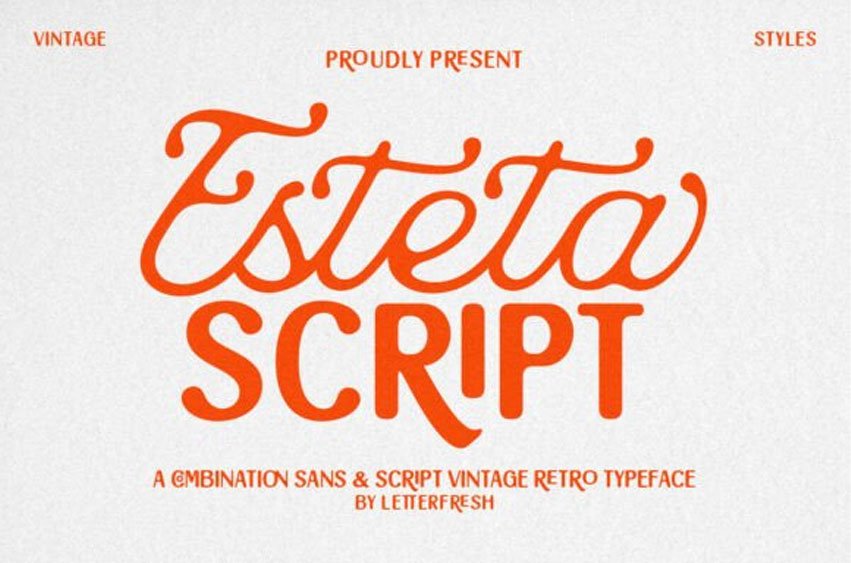
Esteta Script Font
Esteta Script Font Duo is a vibrant, monoline combination typeface that perfectly captures the playful, energetic essence of the 1970s and 80s, offering a refreshing and bold take on vintage design.
This powerhouse duotypeface features a smooth, cursive script brimming with life and generous loops, expertly paired with a punchy, rounded Sans Serif that shares its thickness and confident stance, creating a cohesive and compelling visual identity. Its retro-modern styling makes the Esteta Script font incredibly versatile, from high-impact product packaging and large-scale poster design to cheerful apparel graphics and dynamic social media content.
The Esteta Script typeface comes packed with essential stylistic alternates, ensuring you can fine-tune your headlines for maximum vintage flair. It is the ultimate choice for projects that demand a bold, fun, and instantly recognizable retro-inspired display.